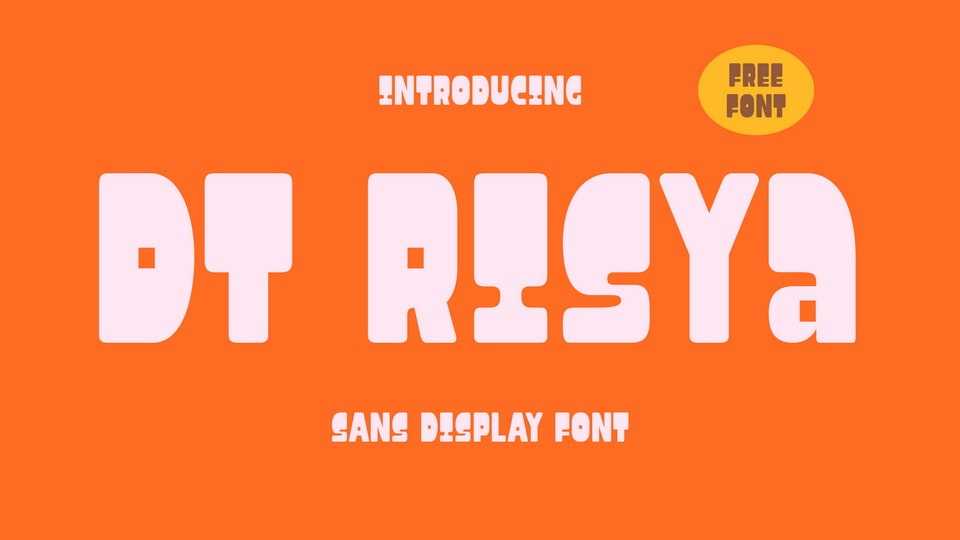
Download DT Risya font, a typeface inspired by the spirit of young people, which is cute and playful with a retro theme, suitable for various designs, elevating it to the highest level.
Designer: Dryy.type